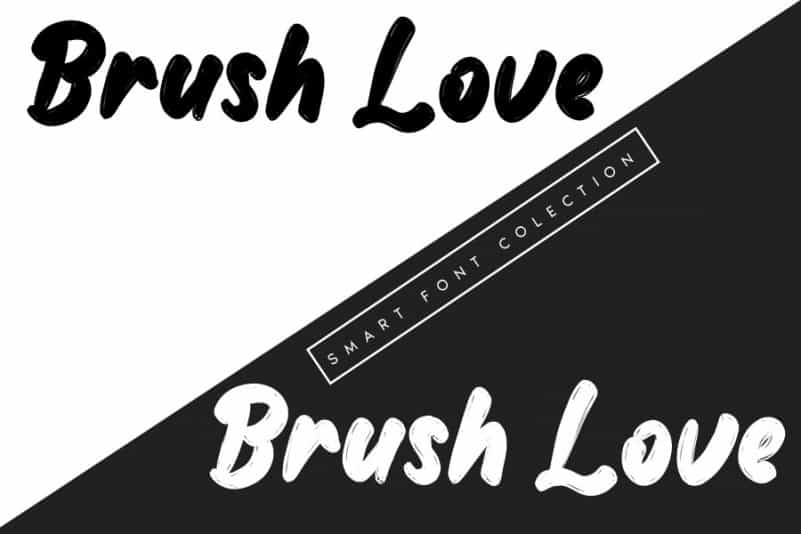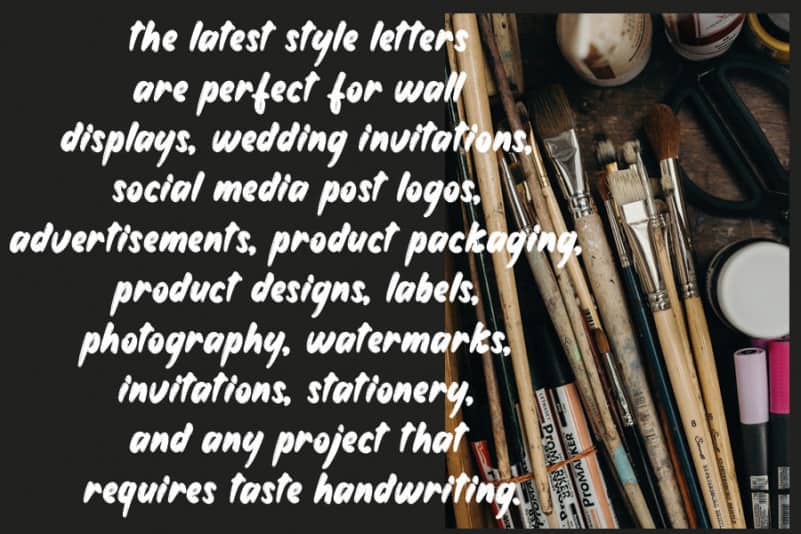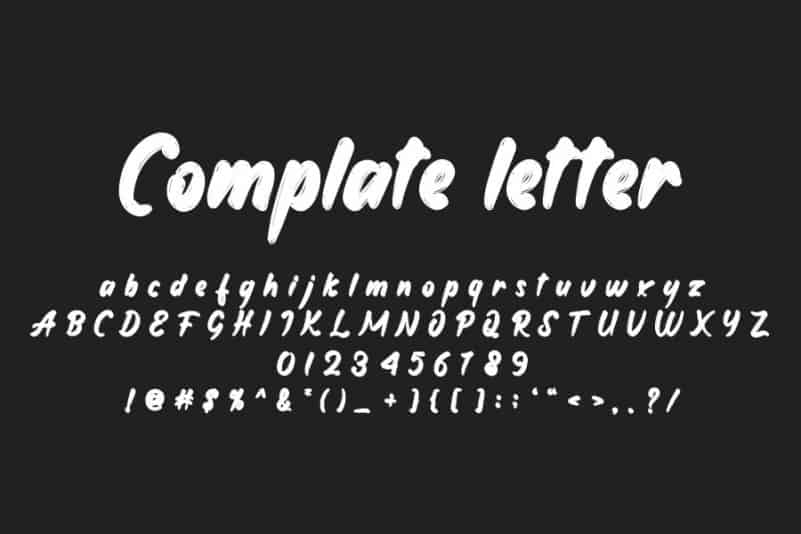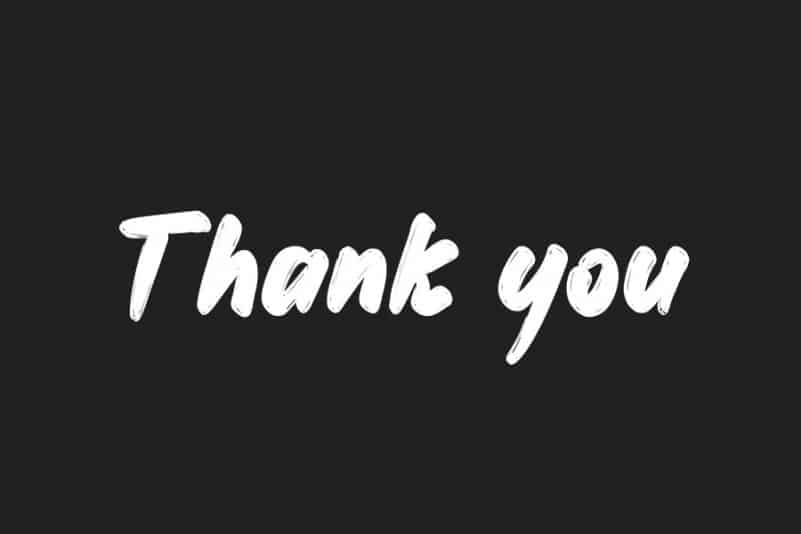
Brush Love Brush Font
Brush Love Brush Font looks bold, yet sophisticated and features chunky and extended characters that will look particularly adept when used in logos, branding, packaging design, and much more. This masterfully designed handwritten font is a true must-have.